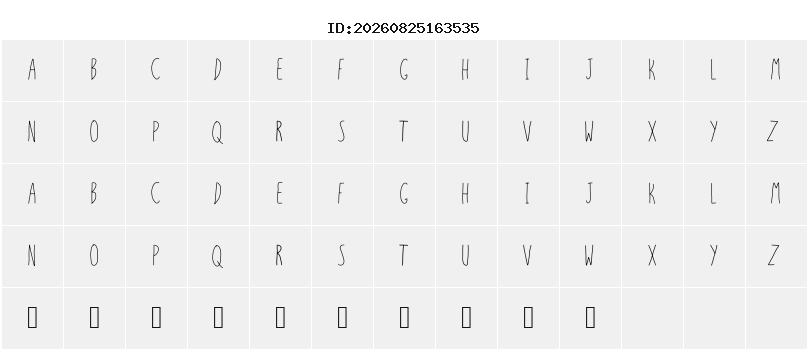
SIX_SIXTEEN_SIXTEEN Preview
• Font Name: SIX_SIXTEEN_SIXTEEN
• Font Style: Thin
• Font ID: FontForge : SIX SIXTEEN : 15-6-2016
• Full Font Name: SIX SIXTEEN SIXTEEN
• PostScript Name: SIX_SIXTEEN_SIXTEEN
• Character Count: 115
About SIX_SIXTEEN_SIXTEEN.ttf
SIX_SIXTEEN_SIXTEEN.ttf is a modern, elegant sans-serif font designed for ultimate readability and visual harmony. Perfect for branding, headlines, web design, and print materials.